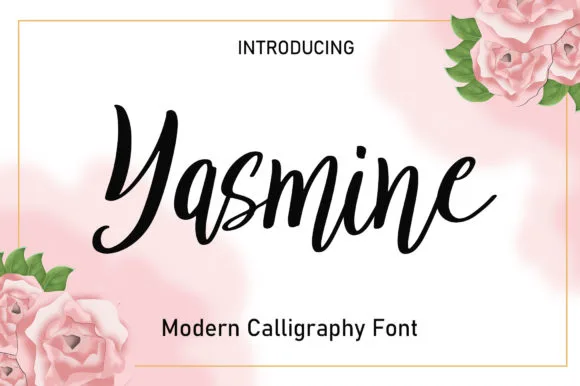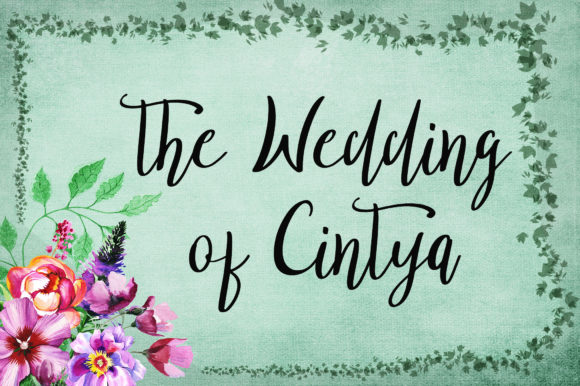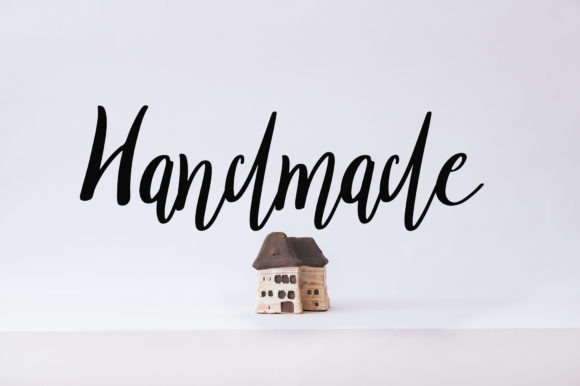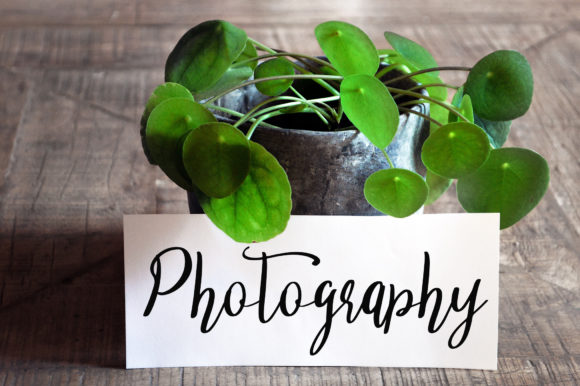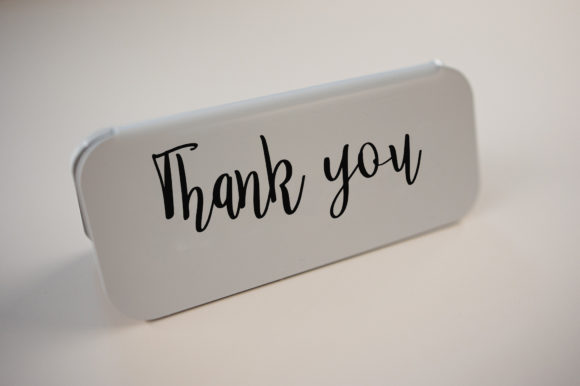
Yasmine Font
About Yasmine Font
Yasmine is a stylish and incredibly elegant handwritten font. It looks stunning on wedding invitations, thank you cards, quotes, greeting cards, logos, business cards and every other design which needs a handwritten touch.